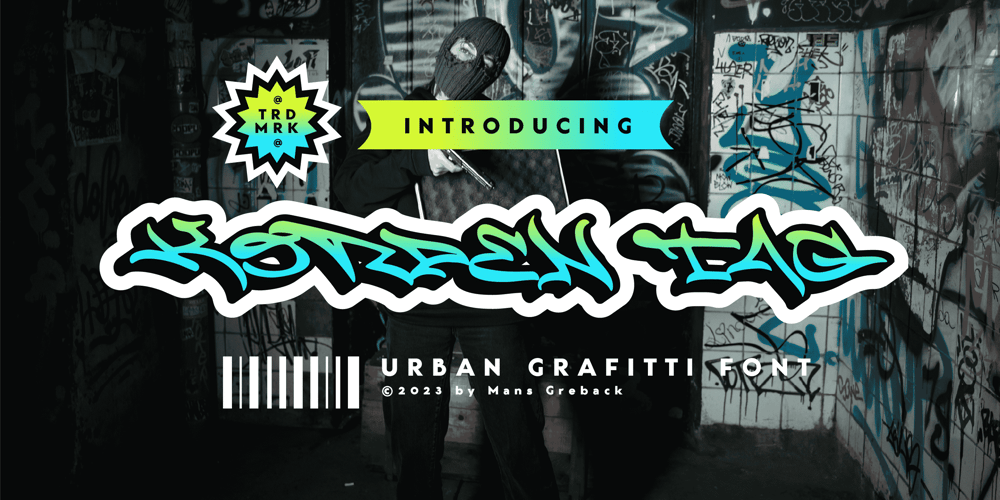
Korpen Tag Font Family was designed by Måns Grebäck and published by Mans Greback. Korpen Tag contains 4 styles and family package options. Korpen Tag is a cool and edgy graffiti font that captures the essence of street art and urban culture. With its tag-inspired handwriting and paintbrush strokes, this font brings an authentic and vibrant touch to your creative projects, making them feel dynamic and alive.Ideal for streetwear branding, album covers, posters, and other projects that require a cool, contemporary vibe, Korpen Tag is an uppercase font that adds a raw, energetic touch to your designs. Its distinctive style makes it a great choice for projects that need to stand out and make an impact.The Korpen Tag font family includes four high-quality styles to suit various design needs:Regular: A free-flowing, paintbrush-inspired graffiti styleUpright: A more controlled, vertical version of the regular styleBold: A heavier, bolder version for more impactful designsBold Upright: Combines the boldness of the bold style with the structure of the upright styleBuilt with advanced OpenType functionality, Korpen Tag ensures top-notch quality and provides you with full control and customizability. It includes stylistic alternates, ligatures, and other features to make your designs truly unique.It has extensive lingual support, covering all Latin-based languages, from Northern Europe to South Africa, from America to South-East Asia.It contains all characters and symbols you’ll ever need, including all punctuation and numbers.